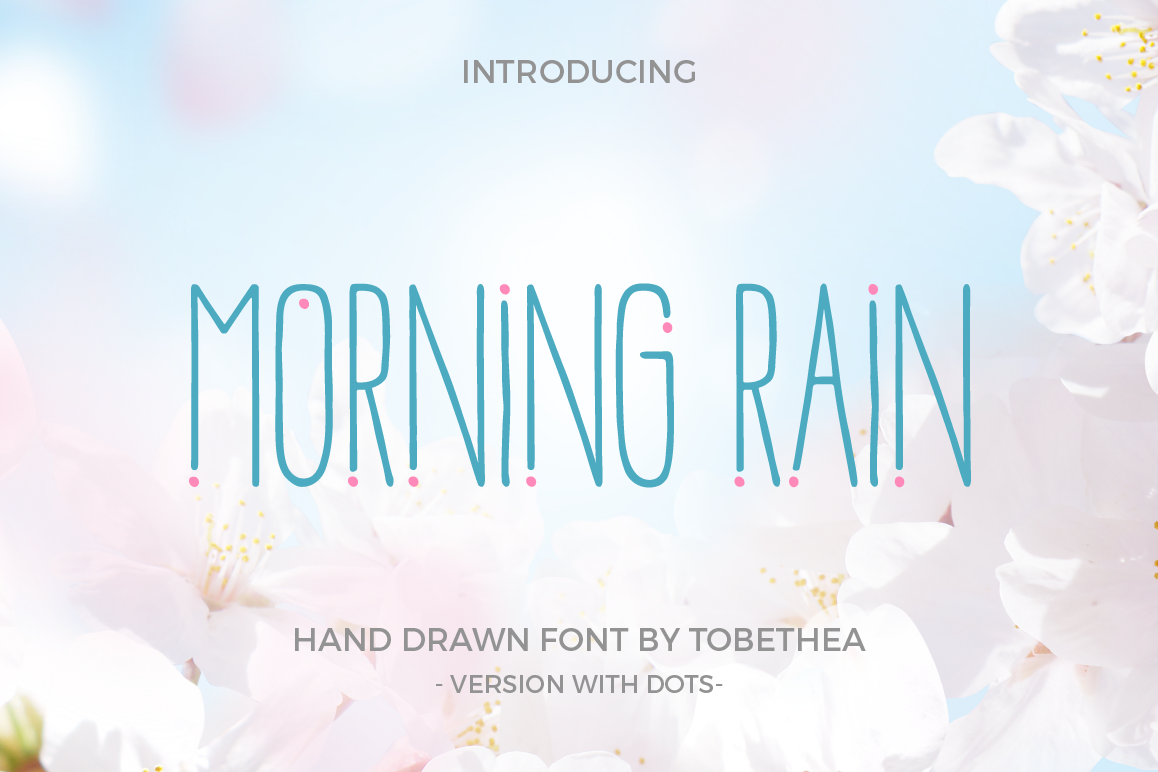
Morning Rain Font with Dots
Morning Rain is an unique and handmade font with cute little dots. It's great for big and short titles or headlines. You can customize it with changing dots in different colors and make it look even cuter :)
Morning Rain is the uppercase font. When typing in uppercase letters you will get uppercase letters with dots. But when typing in lowercase letters you will get uppercase without dots. Font includes glyphs for many languages and also some cute symbols.
It's great for invitations or wedding designs. If made colorful it's also great for kid-designs.